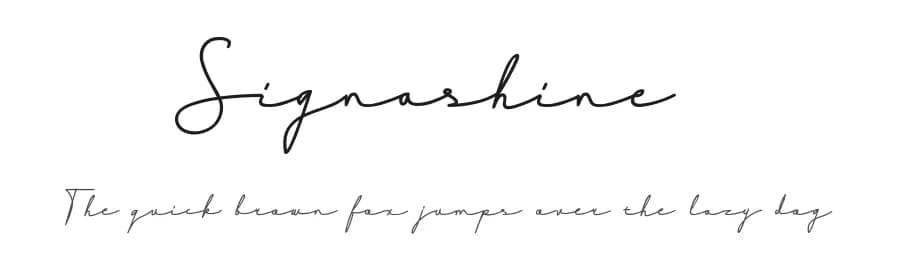
About Signashine Font
Signashine Font is a script font that shines as a display or heading face. Pair it with a clean sans-serif or serif font for body text β the contrast creates a clear hierarchy while the two styles stay balanced and easy to read.
Signashine Font